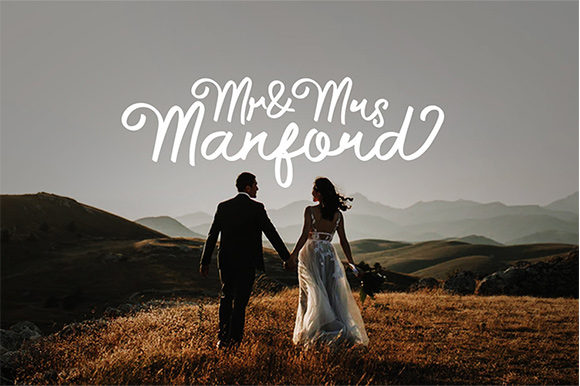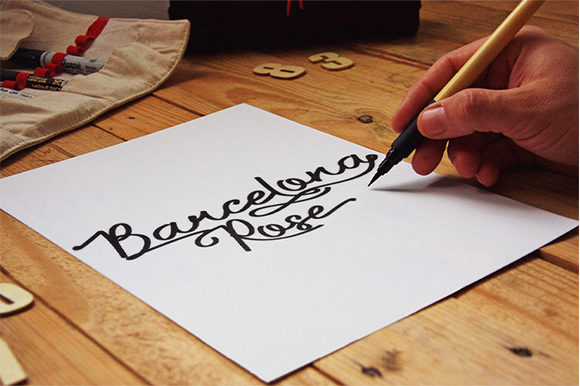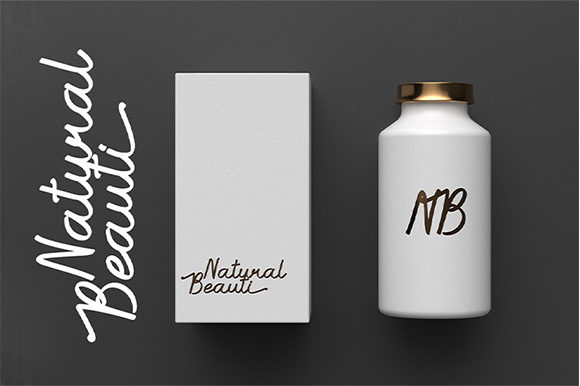
Introduction to Barcelona Rose Font
Have you ever been working on a creative project, pouring your heart and soul into it, only to find the perfect font to tie everything together? For many designers, that moment is like finding the missing puzzle piece. It’s the moment when everything falls into place, and the project comes alive. For me, that moment happened when I stumbled upon the enchanting Barcelona Rose Font.
This magical script font is a masterclass in elegance, with its classic style and friendly feel making it the perfect addition to any design project. Whether you’re working on a high-quality brochure, a website, or a creative campaign, the Barcelona Rose Font is sure to elevate your design to the next level. With its transparent background and versatile design, it’s the perfect resource for designers looking to add a touch of sophistication to their work.
Key Features of Barcelona Rose Font
- High-quality design with intricate details, perfect for creative projects that require a touch of elegance.
- Designed with high resolution, making it suitable for use in print and digital media applications.
- Unique characteristics include ornate flourishes and decorative elements, adding a touch of sophistication to any design project.
Honest Review: Barcelona Rose Font
I recently stumbled upon the Barcelona Rose Font and I have to say, it’s a hidden gem. This elegant script font is perfect for any creative project that requires a touch of sophistication. One of the things that caught my attention is the transparent background, making it easy to layer and customize.
- ✨ High-quality design that looks great on any medium
- ✨ Perfect for creative projects that require a romantic and elegant touch
- ⚠️ Limited character set, which might be a problem for longer texts
Overall, I’m impressed with the Barcelona Rose Font. It’s a great design resource that can add a touch of elegance to any project. While it has its limitations, it’s still a valuable addition to any designer’s toolkit.
The Barcelona Rose Font is ideal for a variety of design projects, including graphic design, digital art, and typography. It’s also a great choice for designers who want a high-quality, free download font with a transparent background.